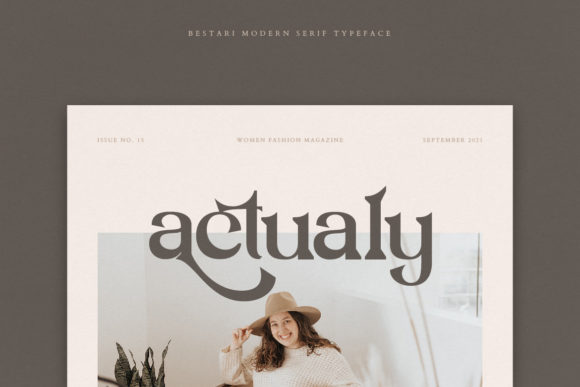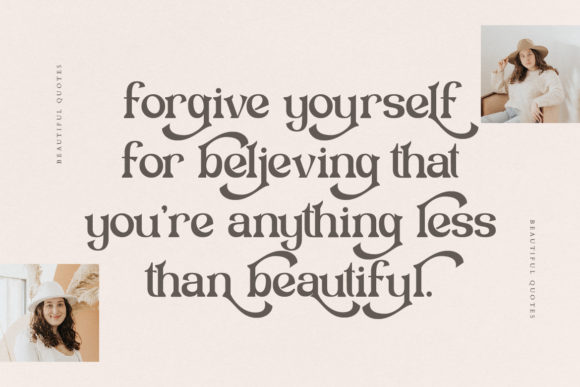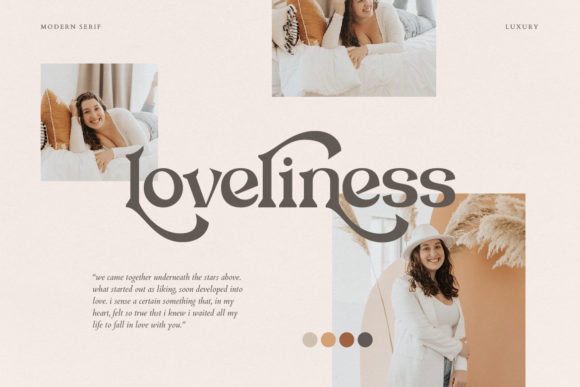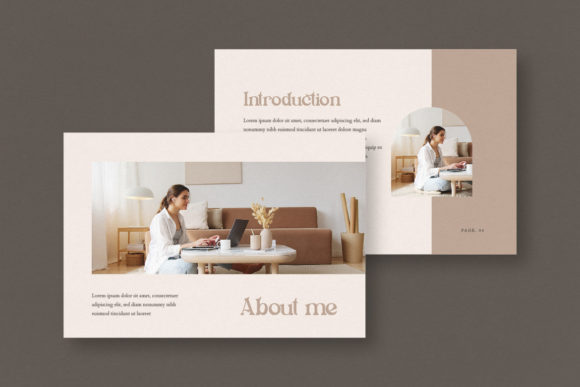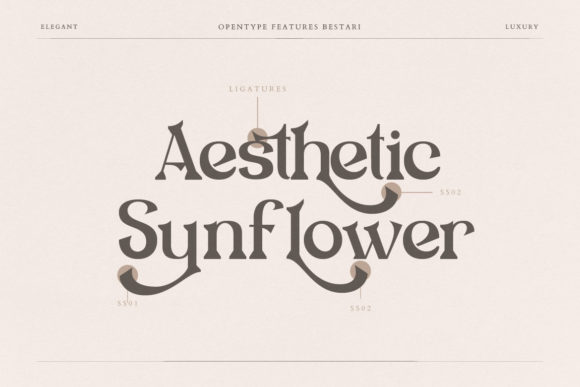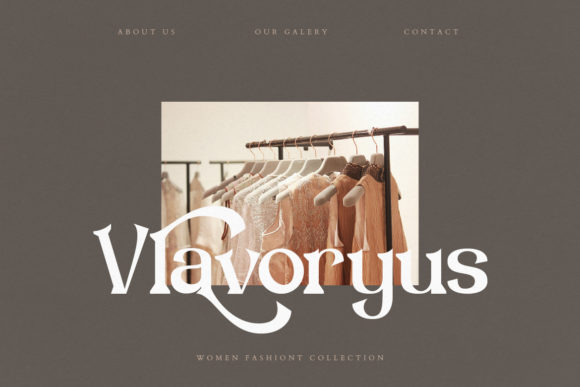
Introducing Bestari Font: Elevate Your Crafty Ideas with Modern Elegance
In the world of design, the right font can make all the difference. Whether you’re crafting a logo, creating social media posts, designing apparel, or making labels, the typography you choose sets the tone for your entire project. For those seeking a modern, unique, and bold look, the Bestari Font is an exceptional choice. Built specifically for great-looking crafty ideas, Bestari is a modern serif font that brings a fresh perspective to the world of typography.
What Makes Bestari Font Stand Out?
Bestari Font is distinguished by its bold and unique shape, making it an ideal choice for designers and crafters looking to infuse their projects with a modern edge. Unlike traditional serif fonts, Bestari offers a contemporary twist that can elevate any item to look sleek and distinctive. Its versatility allows it to be used across various mediums, from digital platforms to print materials, ensuring your designs always stand out.
Key Features of Bestari Font
- Modern Serif Design: Bestari brings a modern flair to the classic serif font, making it perfect for projects that demand a current and stylish look.
- Bold and Unique: Its distinctive shape ensures that your designs grab attention and leave a lasting impression.
- Versatile: Suitable for a wide range of applications, including logos, social media posts, apparel designs, labels, and more.
- Ease of Use: Designed to be user-friendly, Bestari can be easily integrated into your projects, regardless of your design experience.
Use Cases for Bestari Font
The versatility of Bestari Font makes it a valuable asset for various design projects. Here are some of the best ways to utilize this modern serif font:
- Logo Design: Create a memorable brand logo that stands out with Bestari’s bold and unique style.
- Social Media Posts: Elevate your social media content with eye-catching typography that captures your audience’s attention.
- Apparel Designs: Add a modern touch to your clothing and accessory designs, making them more appealing to your target audience.
- Labels: Whether for products, files, or any other items, Bestari can help your labels look professional and distinctive.
Tips for Maximizing Bestari Font’s Potential
To get the most out of Bestari Font, consider the following tips:
- Experiment with Sizes: Bestari’s bold design works well in various sizes, from large headings to smaller body text.
- Play with Colors: While Bestari looks great in black and white, experimenting with colors can add an extra layer of uniqueness to your designs.
- Combine with Other Fonts: For added versatility, try pairing Bestari with complementary fonts to create visual interest.
Bestari Font is a game-changer for designers and crafters looking to infuse their projects with a modern, elegant look. Its bold and unique design, coupled with its versatility, makes it an invaluable tool in your design arsenal. Whether you’re creating logos, social media content, apparel, or labels, Bestari can help ensure your work stands out in a crowded digital landscape. Embrace the power of Bestari Font and elevate your crafty ideas to new heights of style and sophistication.